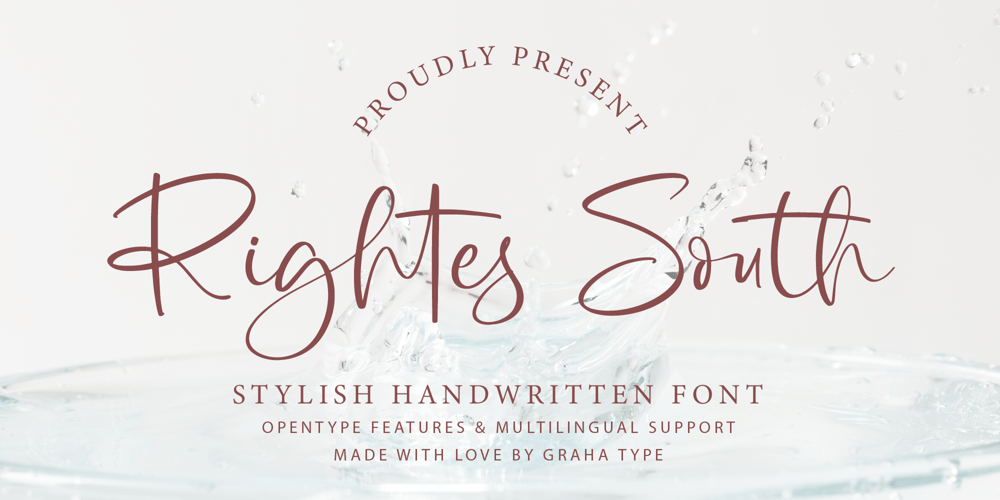
Rightes South Font Family was designed by Toni Nugraha and published by Graha Type. Rightes South contains 1 styles and family package options. Rightes South is a stylish handwritten font that combines elegance with a modern touch. With smooth curves and lively shapes, this font is perfect for designs that highlight beauty and personality. Its unique strokes give it a chic, contemporary look, making it a great choice for many design projects, whether it’s for eye catching logos, romantic wedding invitations, or branding that feels premium and sophisticated.Whats Included :Standard GlyphsAlternates and LigaturesPUA Encoded CharactersMultilingual SupportFeel free to email us at grahatype@gmail.com if you have any questions or require assistance. We look forward to helping you with your design needs!